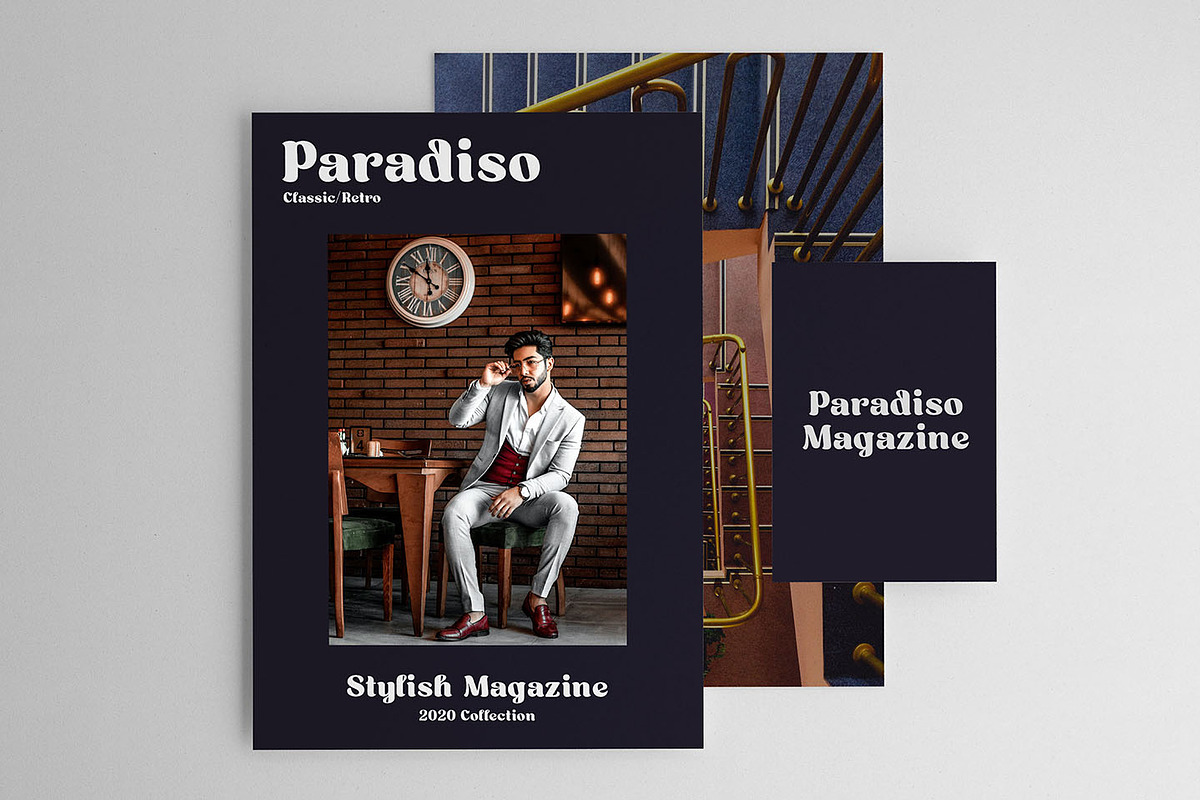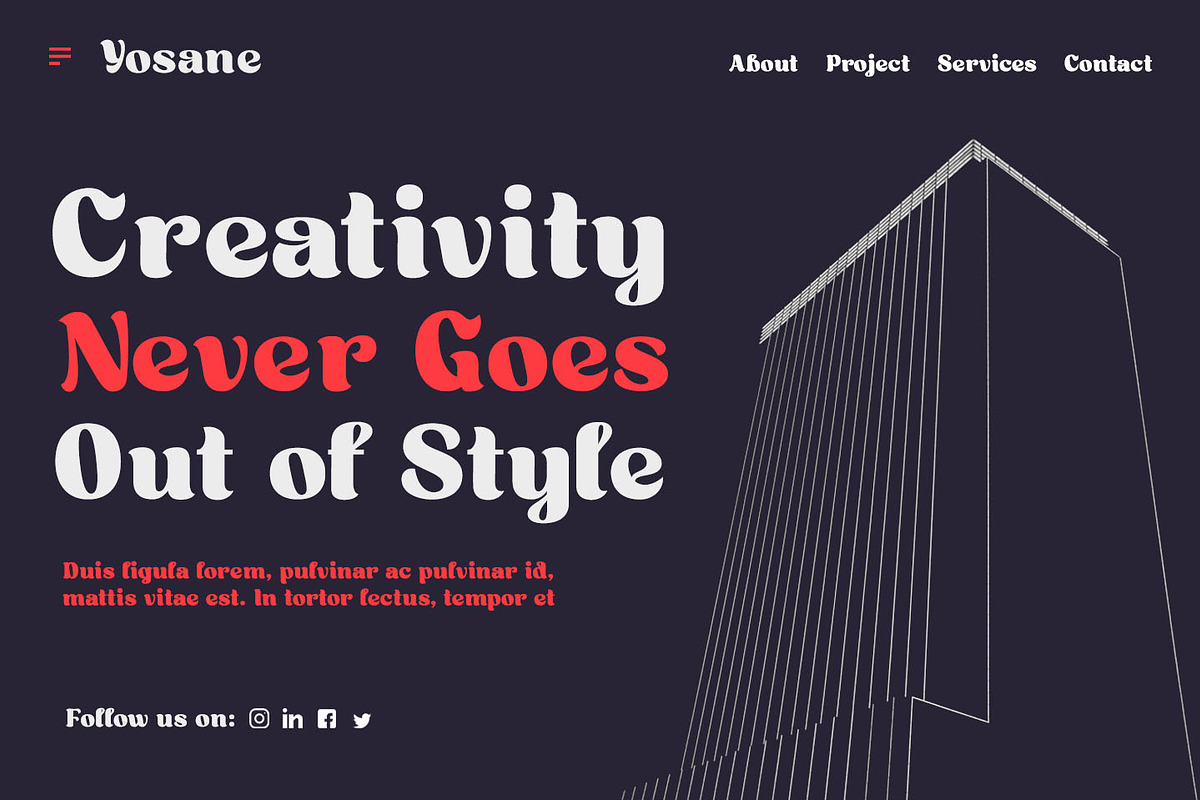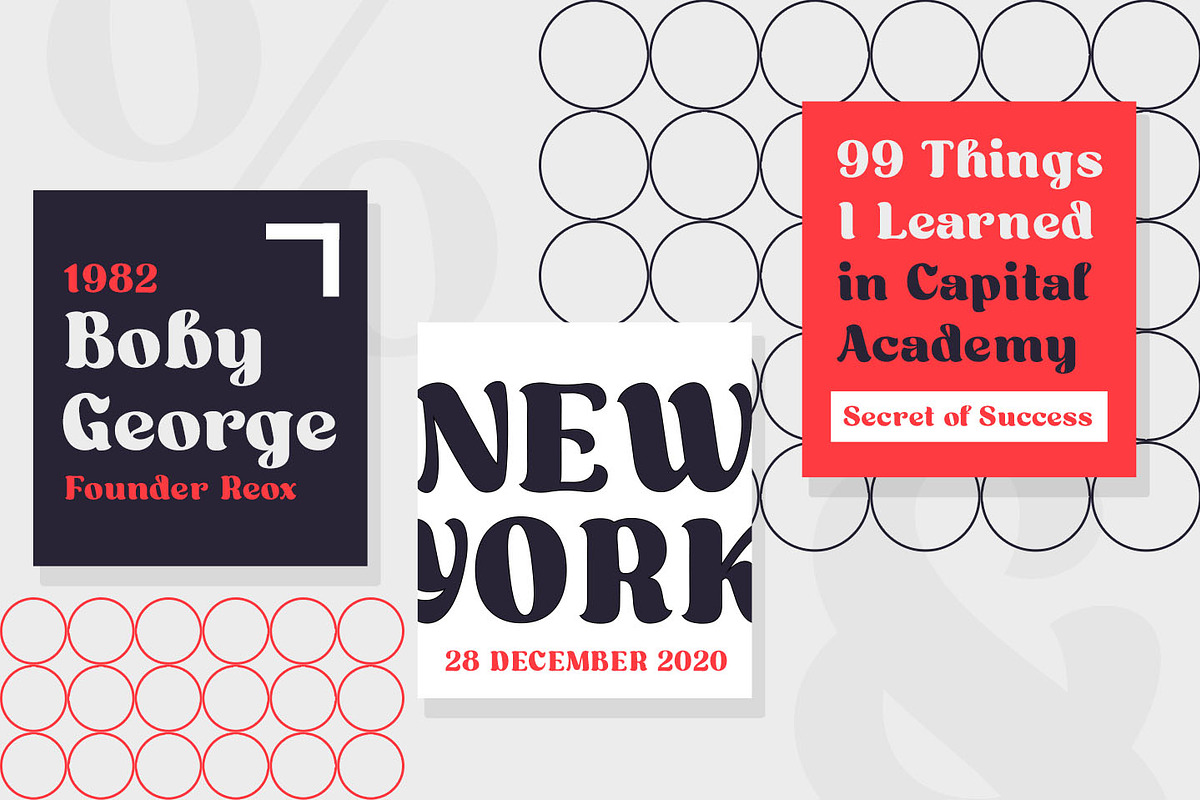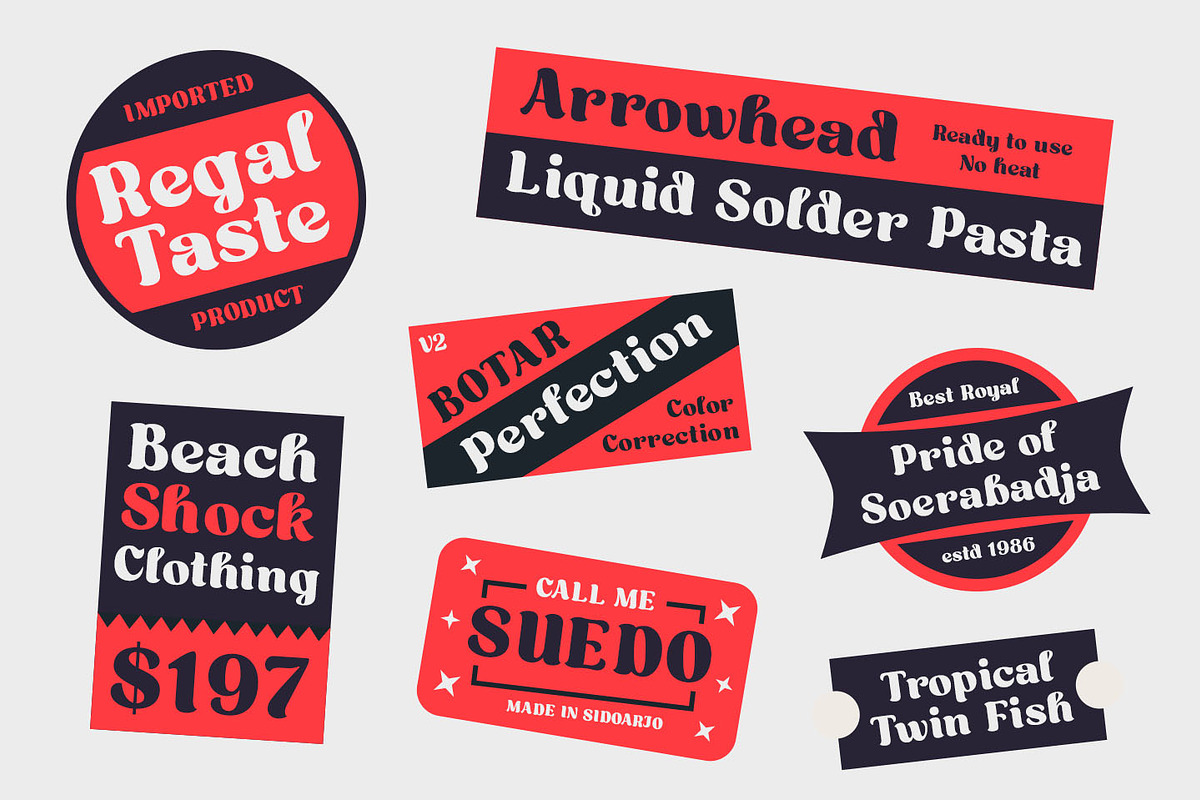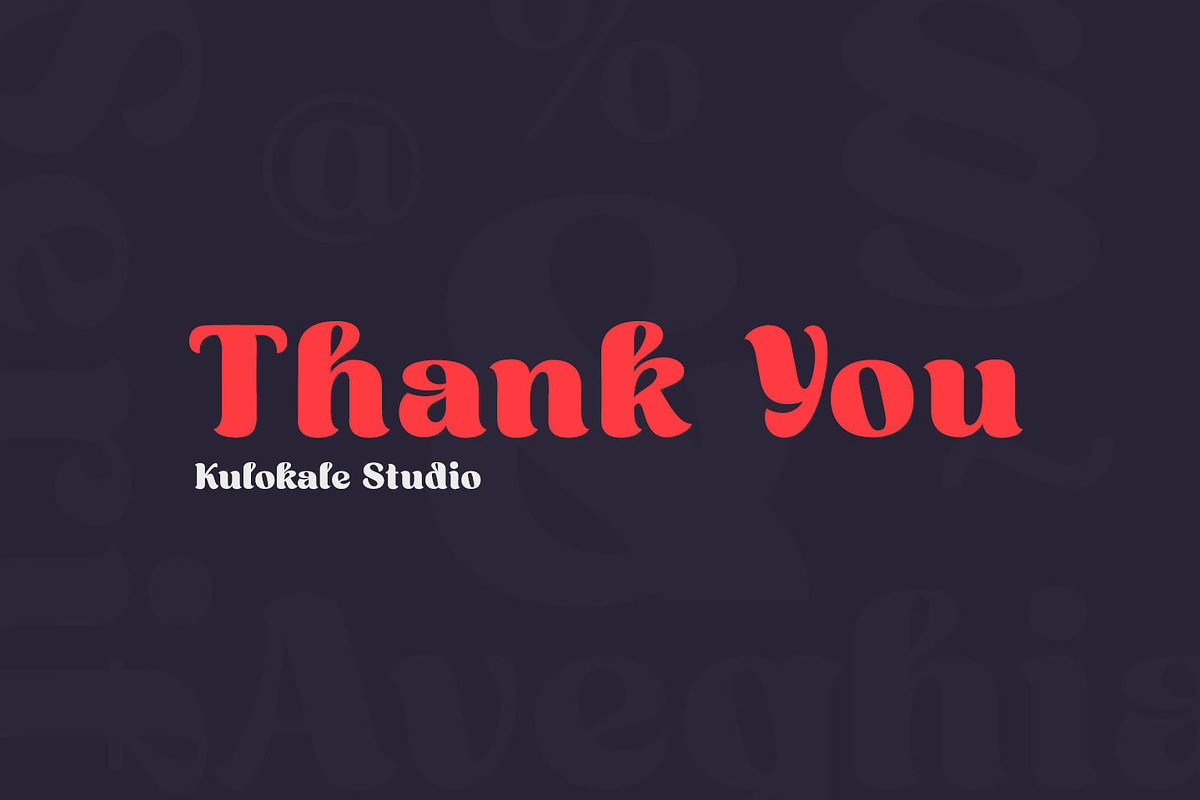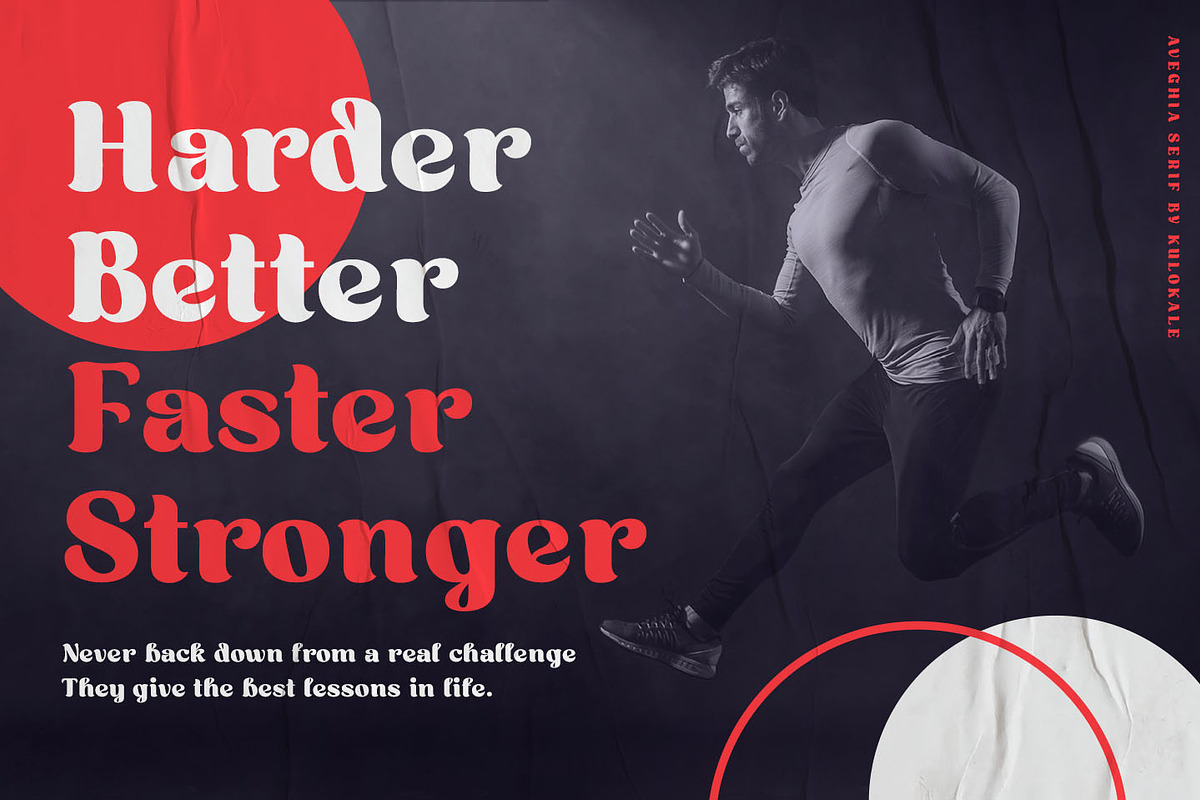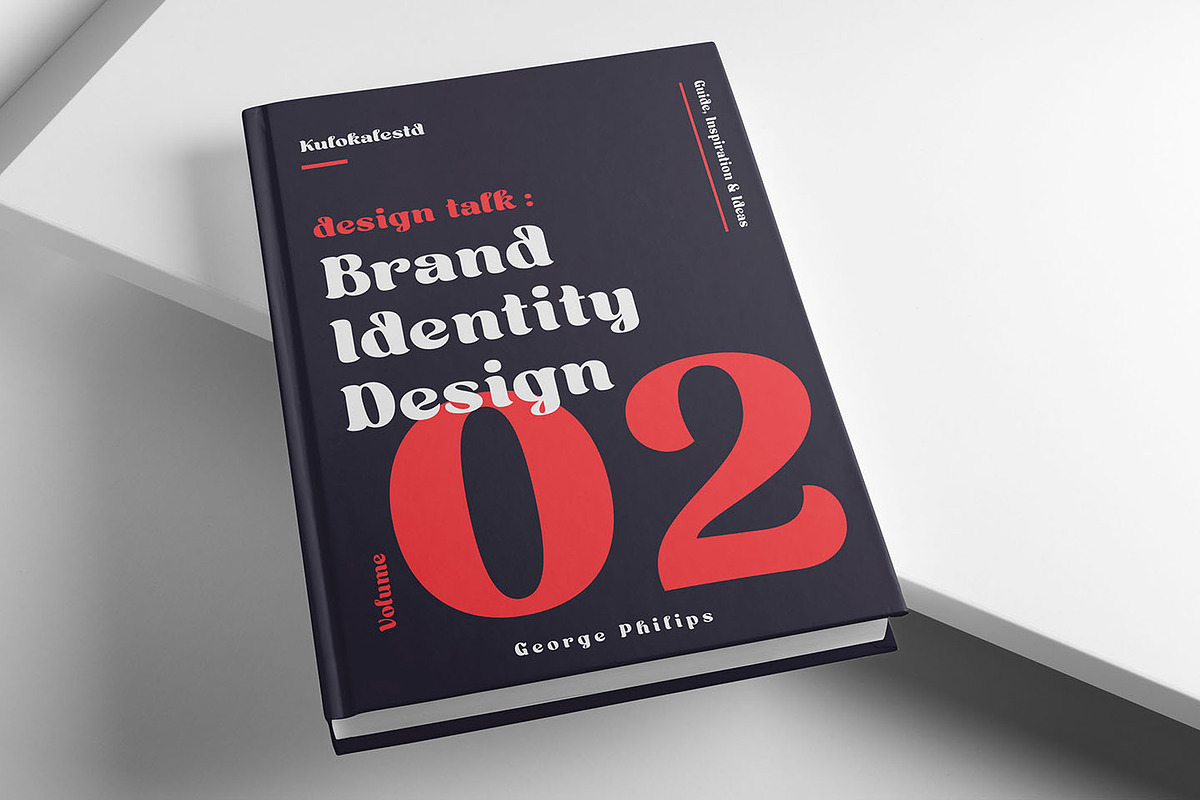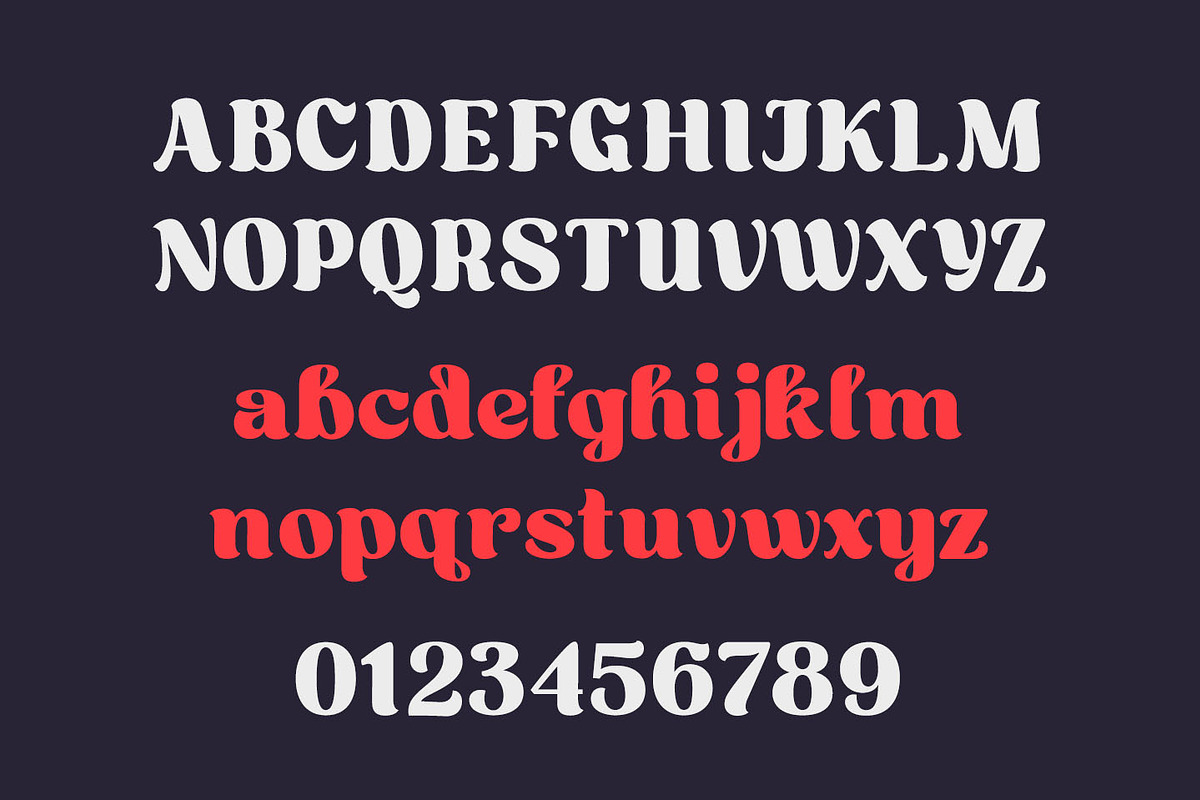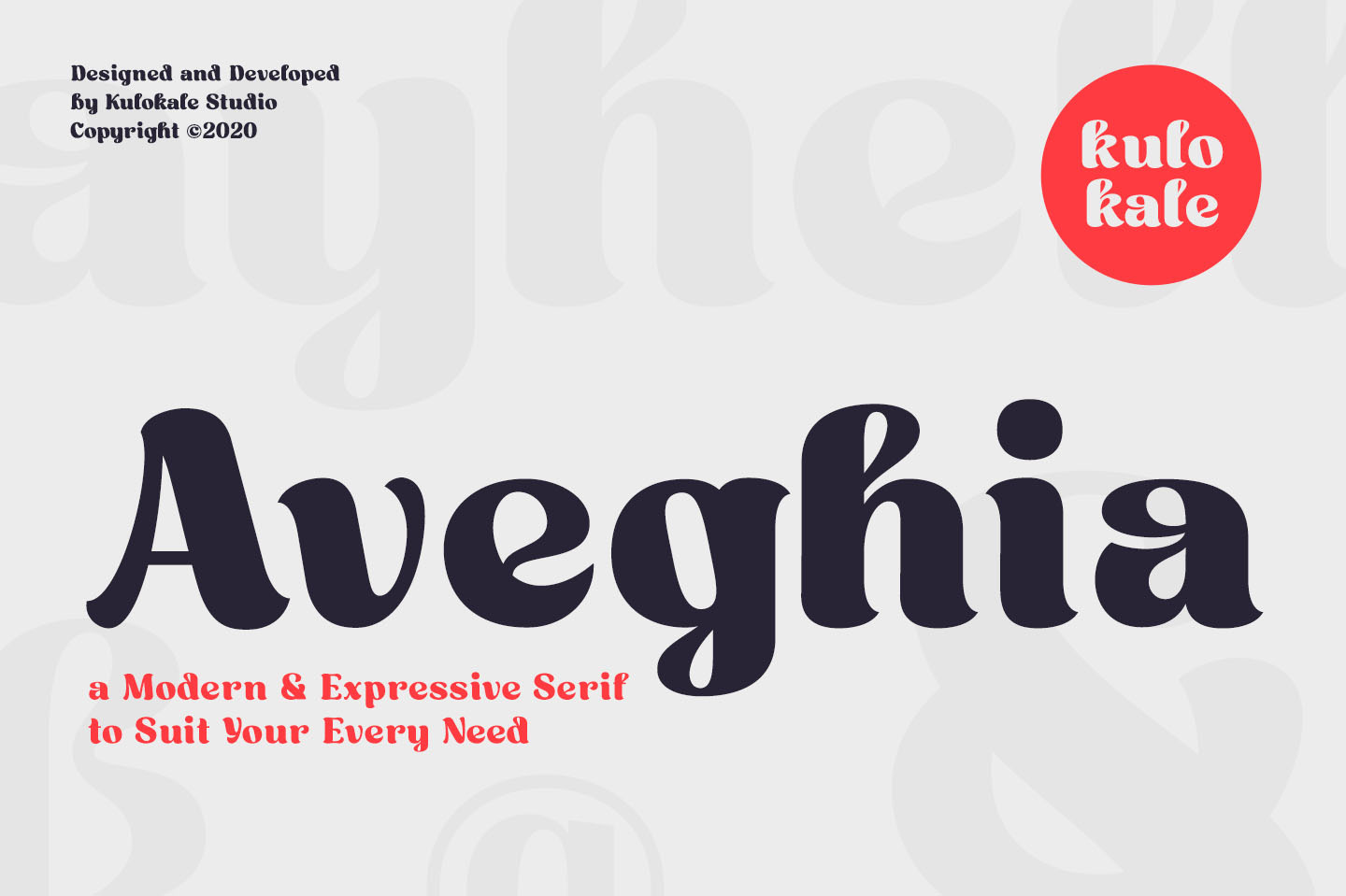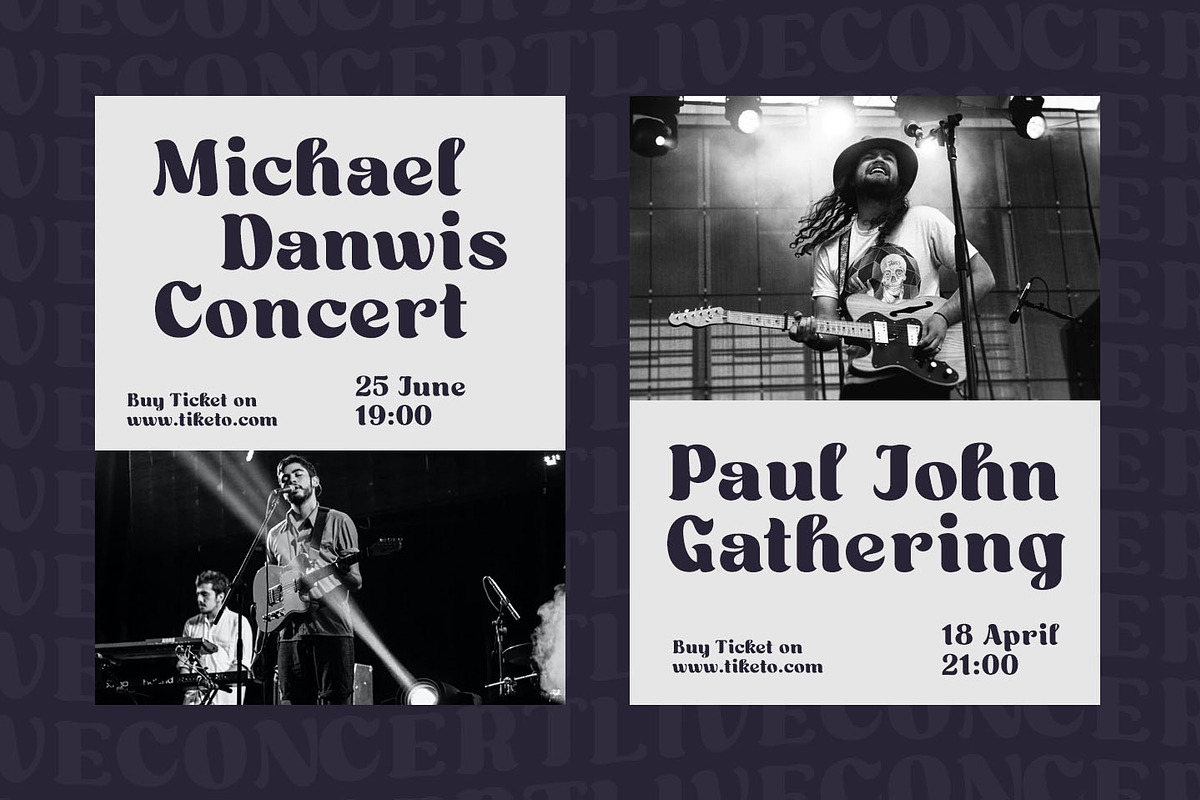
Aveghia Display Serif Font
Aveghia is a modern and expressive serif font. Aveghia is well-suited for advertising, branding, logotypes, packaging, titles, headlines and editorial design.